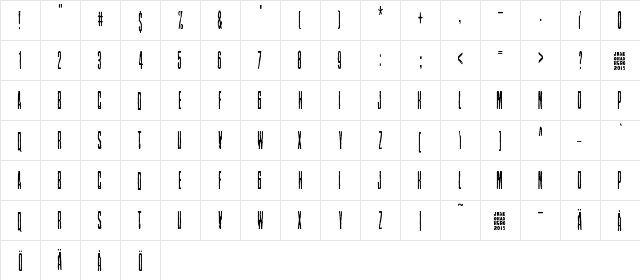
Nollanaama Regular
Design Context for Nollanaama Typeface
Nollanaama is a composed and adaptable typeface that performs quietly and consistently across a wide range of design contexts.